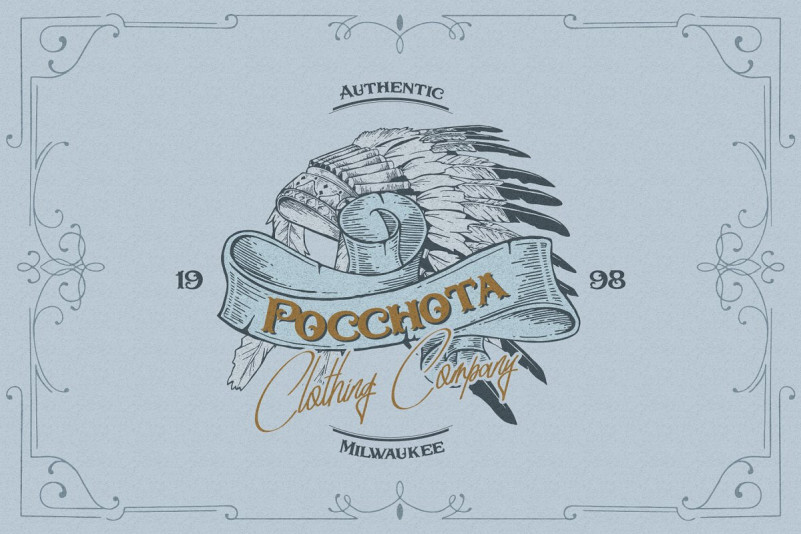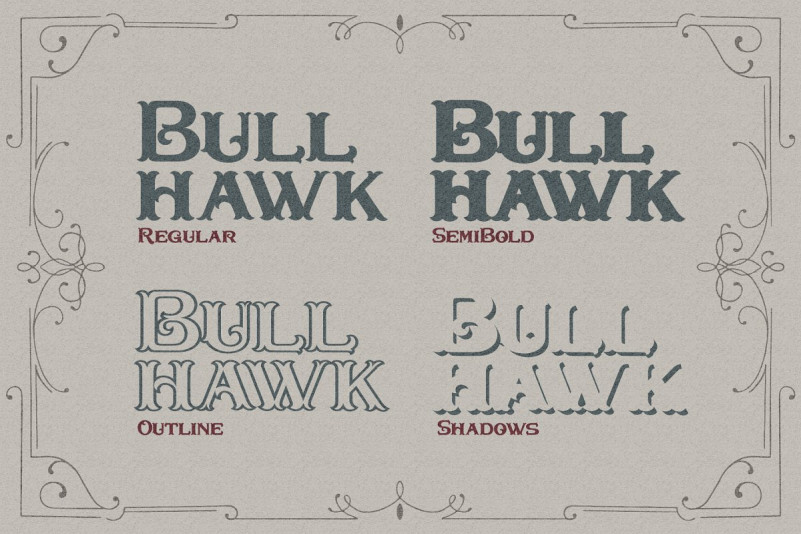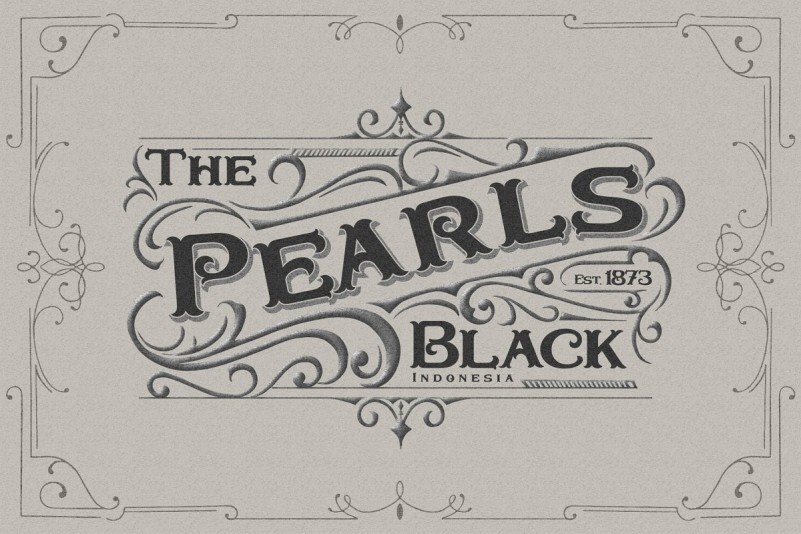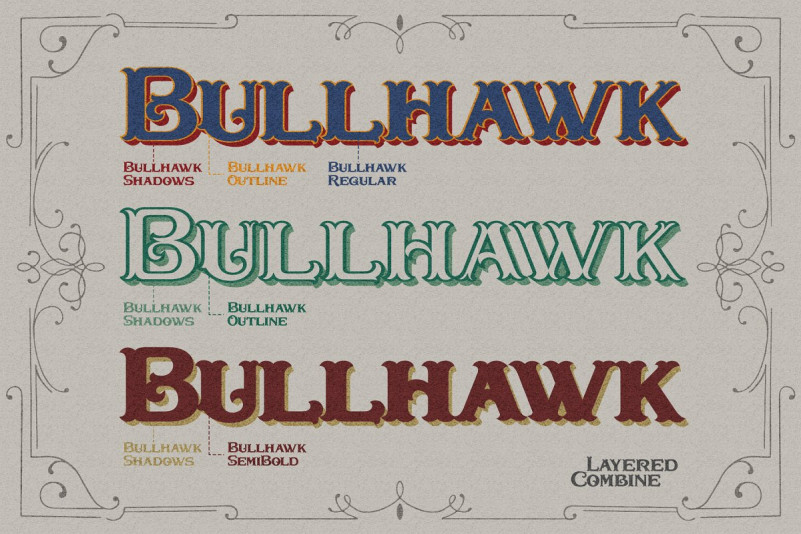
Bullhawk Layered Font
Bullhawk Layered – Demo Font
This is a vintage label display typeface. Another serif font with classic style. Create your own style as you want with 4 layers. Introducing Bullhawk Font. It’s a display typeface that has a western style with a family of layered letters that can be combined. Consisting of all capital letters which would be very suitable for making a headline on a poster because of its thick and strong nature. Coupled with you can add shadow effects and outlines of the letters family so that it can give a more interesting impression.